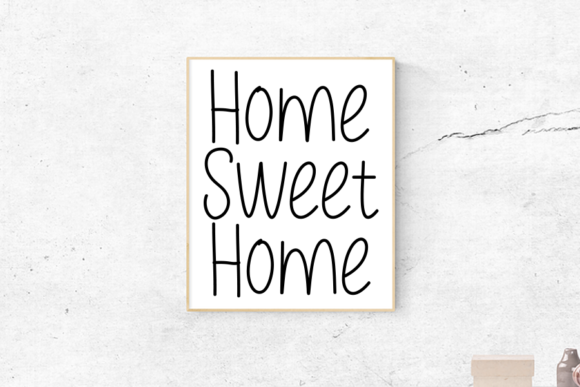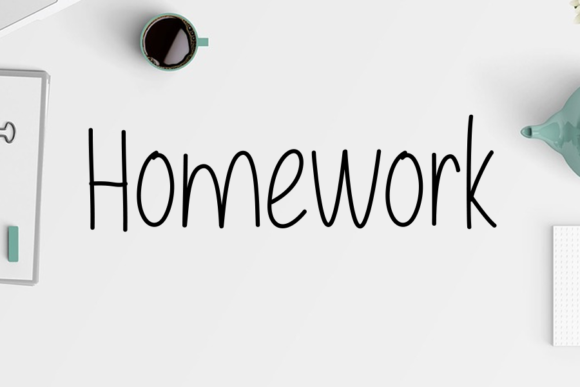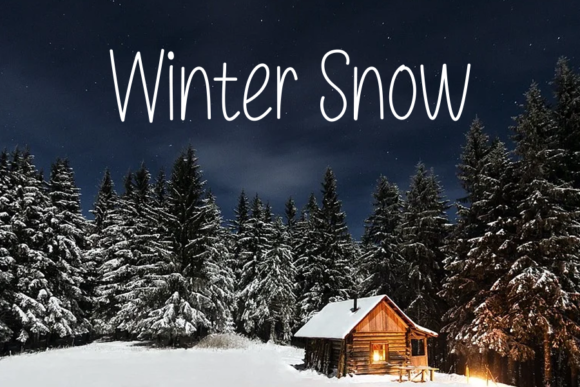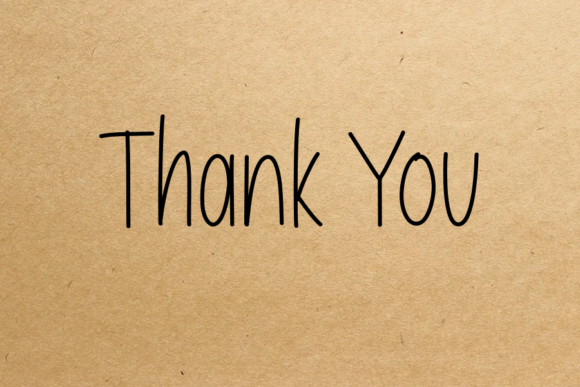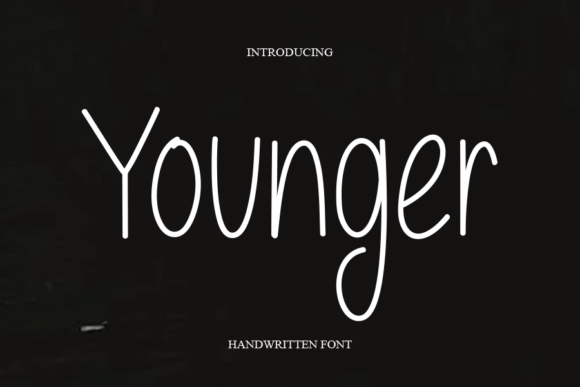
Younger Font
About Younger Font
Younger is a simple, quirky and adaptable handwritten font. Its informal style and casual vibe will make this font a go-to choice for each of the creations that require a relaxed touch.